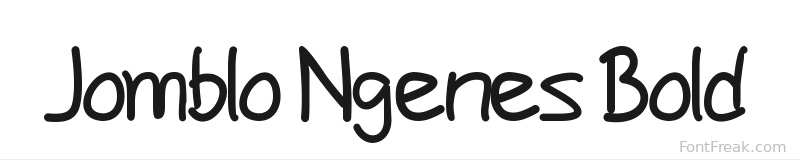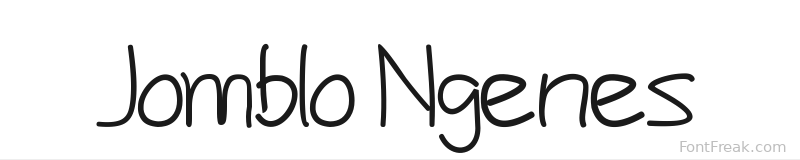
Jomblo Ngenes
Jomblo Ngenes Bold
Jomblo Ngenes is a captivating display font created by Syaf Rizal that embodies a unique blend of playful charm and bold personality. As a decorative typeface, it features a distinctively thick stroke weight that draws attention and adds a sense of fun to any design project. The casual, slightly uneven letterforms give it a handwritten feel, making it an excellent choice for projects that require a personal touch. The font exhibits minimal contrast between thick and thin strokes, contributing to its approachable and friendly demeanor. Its generous letter spacing enhances readability while maintaining a lively character.
Ideal for a variety of creative applications, Jomblo Ngenes shines in contexts such as wedding invitations, where its whimsical style can convey joy and celebration. It is also perfect for movie posters, particularly for comedies or romantic films, as it captures a lighthearted essence that appeals to audiences. Restaurant menus can benefit from its engaging look, inviting diners to experience a warm and welcoming atmosphere. Additionally, content creators looking to add flair to social media graphics or blog headers will find this font to be an excellent fit, as it stands out without overwhelming the viewer.
Targeted towards graphic designers, small business owners, and content creators, Jomblo Ngenes is a versatile choice that can elevate a wide range of projects. Its free availability as a freeware font makes it accessible for anyone looking to enhance their creative work without the burden of licensing fees. In a crowded market of fonts, Jomblo Ngenes stands out for its unique personality and versatility, making it a must-have for those seeking to infuse their designs with character. Don’t miss the chance to explore the Jomblo Ngenes font free download and make your projects truly memorable.